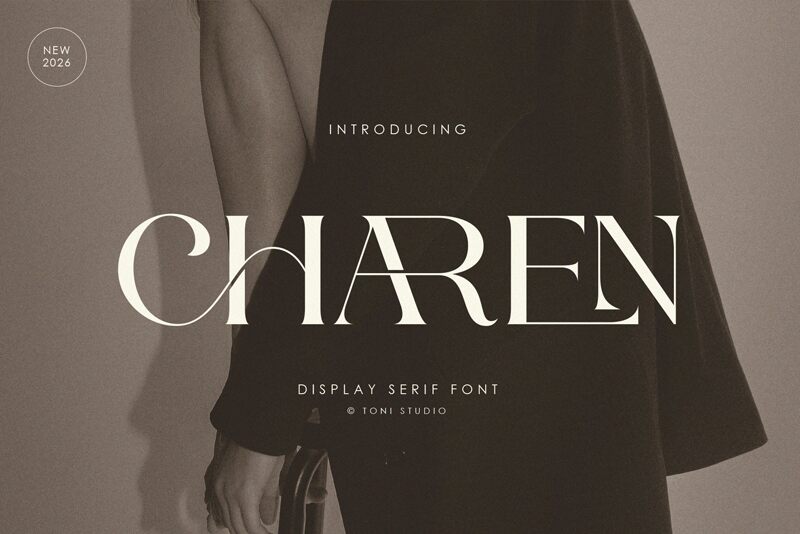
CHAREN
Charen font by ToniStudio is a free serif typeface that lives in the sweet spot between razor-sharp and gracefully sculpted. Tall, statuesque letters with slender inner strokes and bold outer edges create a chic, editorial feel, like ink pulled with a fine calligraphy nib. The rhythm is tight and confident, so even a single word set large feels like a logo.
Using Charen, headlines and logotypes gain an instant fashion-house aura, making it a natural fit for luxury branding, magazine covers, packaging, wedding invitations, posters, and social media graphics. This free font shines when given space to breathe at larger sizes; pair it with a clean geometric sans for body copy to keep layouts polished and modern.